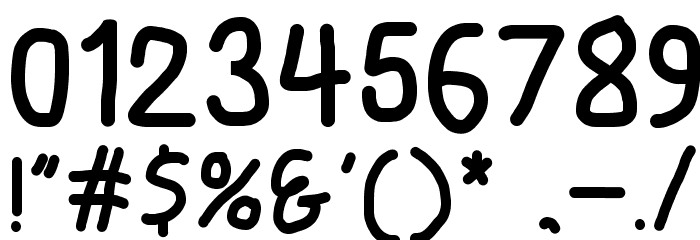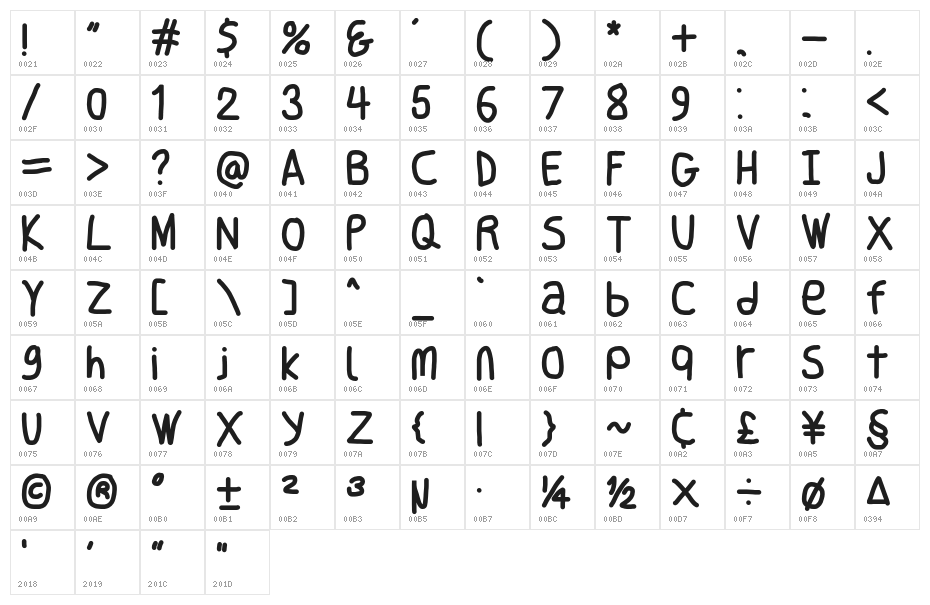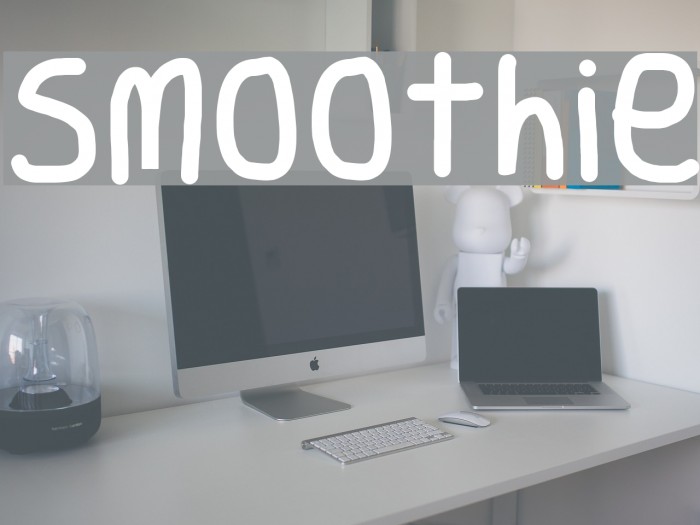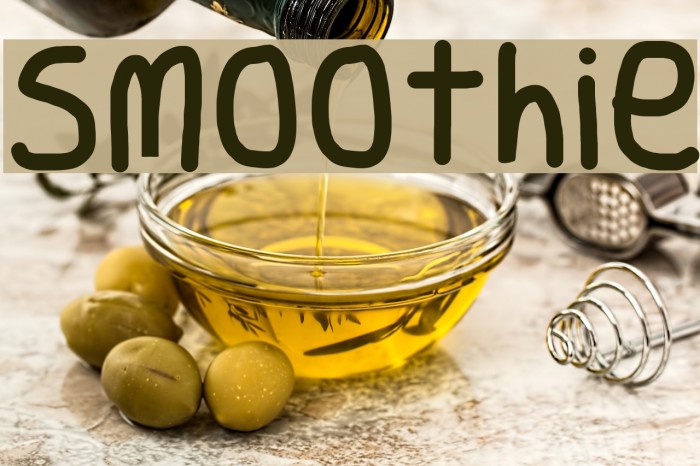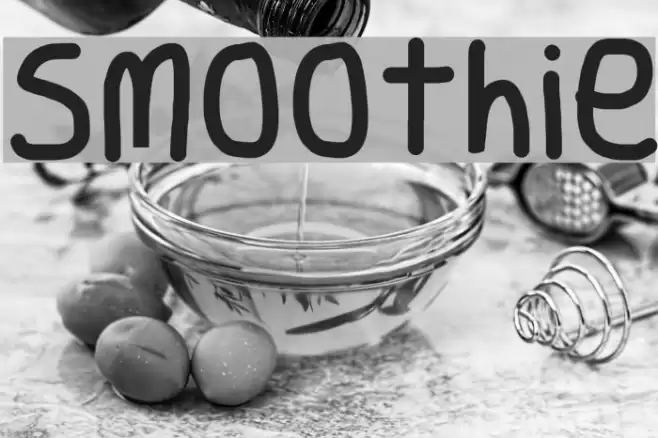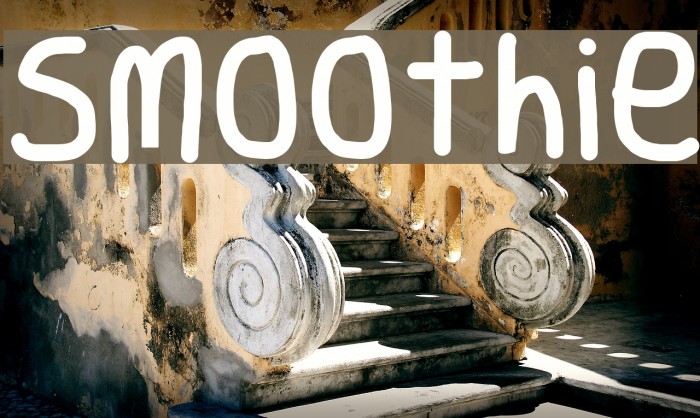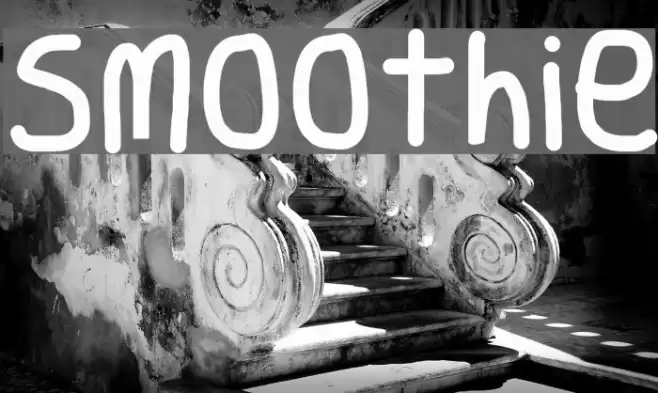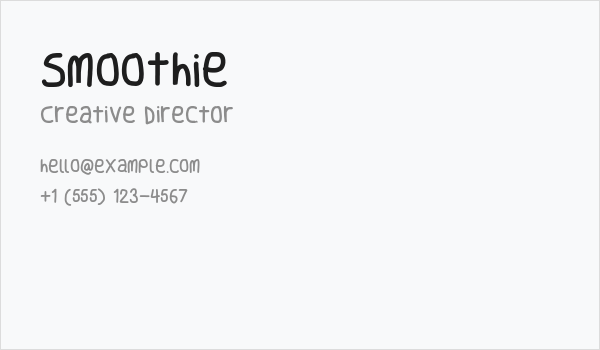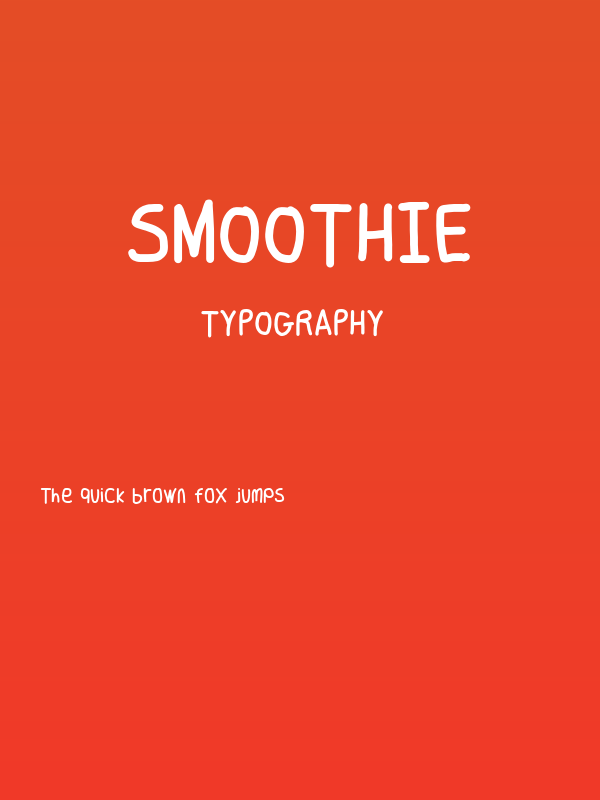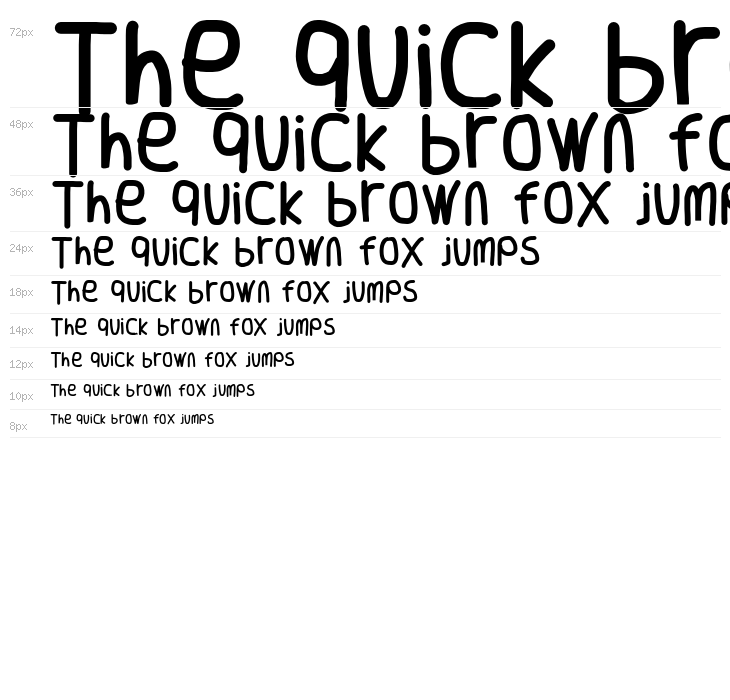
Smoothie Font
Smoothie Description
This playful and informal font features rounded, smooth edges and a hand-drawn appearance, giving it a friendly and approachable feel. The letters are slightly irregular, adding to the casual and whimsical nature of the design. The font maintains consistent stroke thickness throughout, contributing to its cohesive look. Its simplicity and charm make it suitable for projects that require a personal touch or a fun, lighthearted vibe. The characters are well-spaced, ensuring readability while maintaining the font's unique style.
| Use Case | Headlines, Informal text, Branding |
| Proposed Projects | Ideal for children's books, greeting cards, playful branding, and casual invitations. |